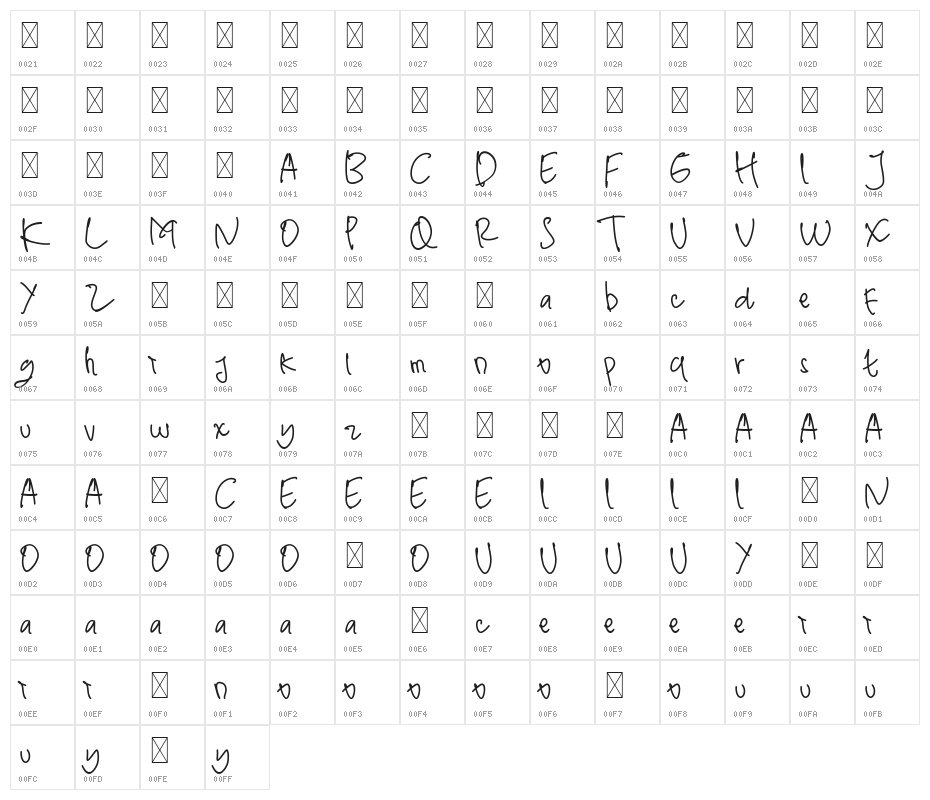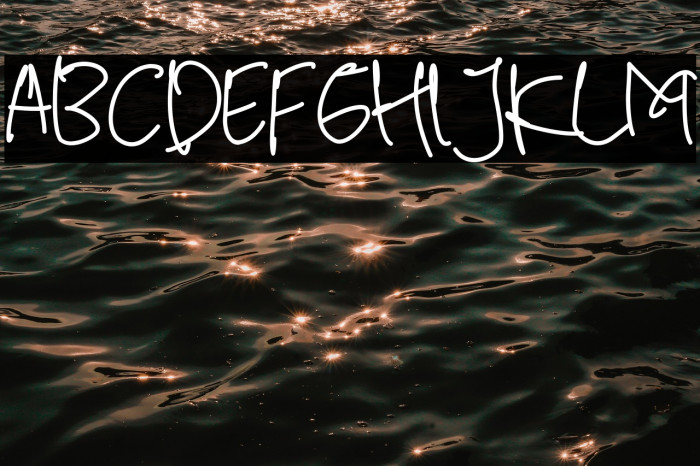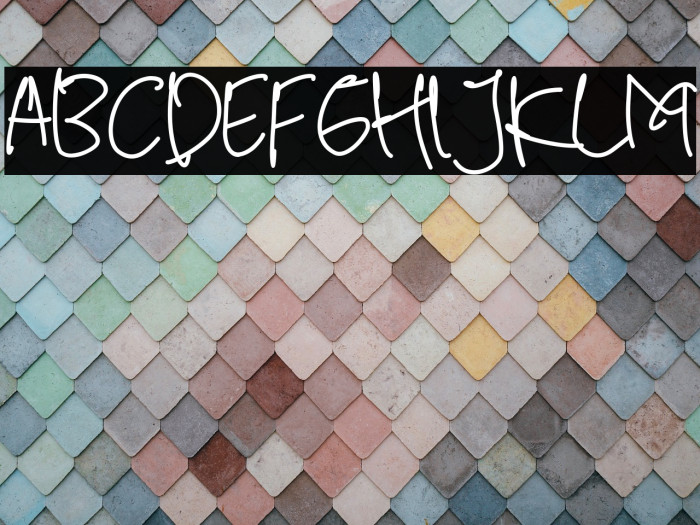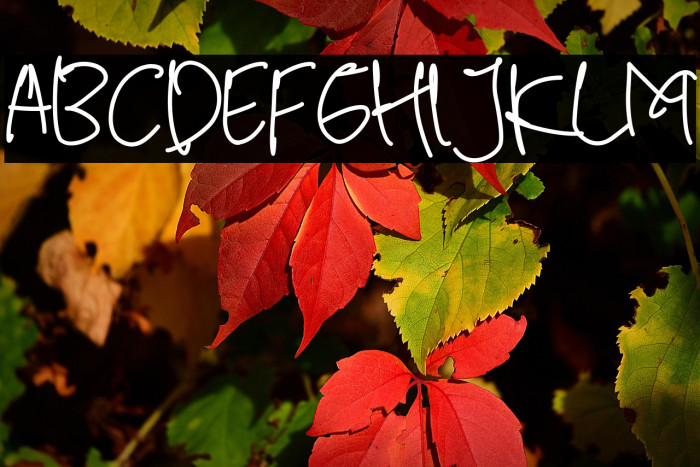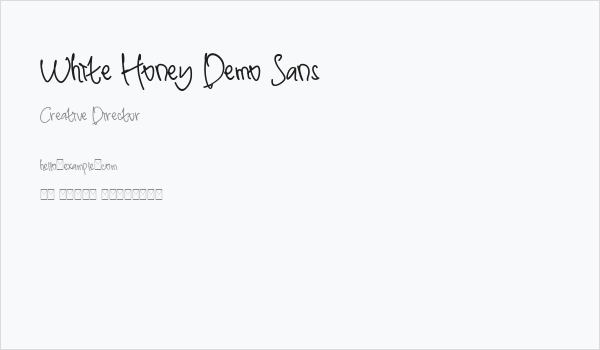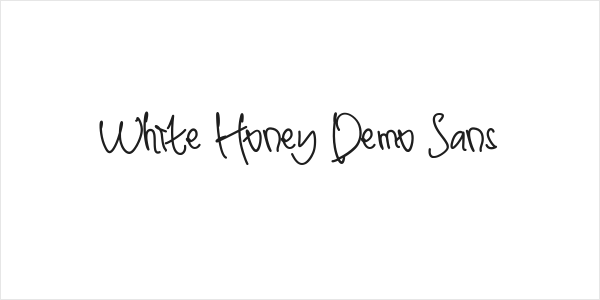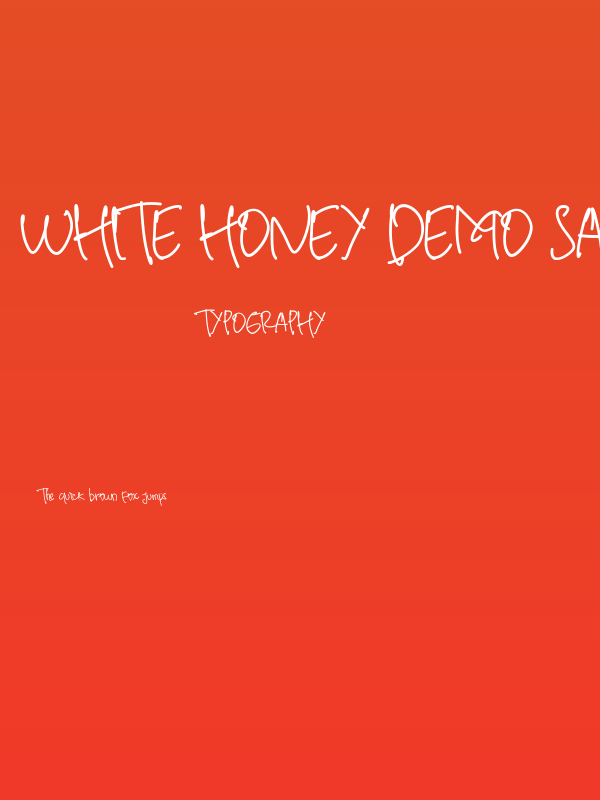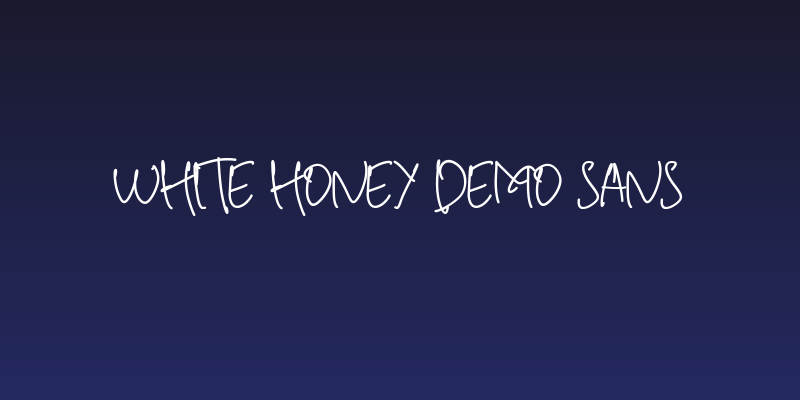
White Honey Demo Sans Font
White Honey Demo Sans Description
This font features a playful and casual handwritten style, characterized by its fluid and organic strokes. The letters are slightly irregular, giving it a personal and informal touch. The uppercase and lowercase letters maintain a consistent style, with a noticeable slant that adds to its dynamic appearance. The font's design is reminiscent of quick, expressive handwriting, making it ideal for projects that require a human touch. The characters are well-spaced, ensuring readability while maintaining the font's unique charm.
| Use Case | Logos, Headlines, Informal Text |
| Proposed Projects | Ideal for greeting cards, personal branding, social media graphics, and informal invitations. |